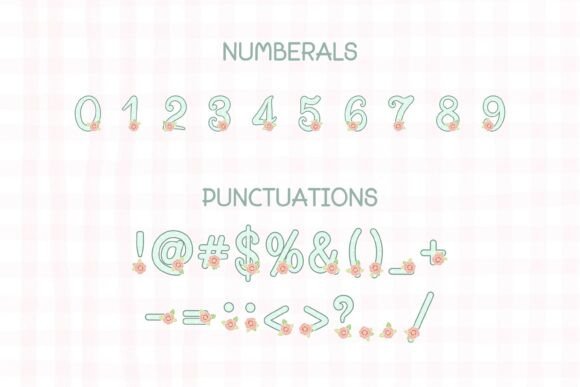
Add a Touch of Whimsy to Your Designs
Have you ever stared at a blank page, waiting for inspiration to strike? I know I have. Sometimes, it’s the smallest details that can make all the difference in sparking creativity. For me, it’s the delicate dance of colors and typography that sets the tone for a beautiful design. And that’s exactly what the Blossom Belle Font does – it adds a touch of elegance and whimsy to any project.
This stunning display font is adorned with soft pastel colors and delicate floral elements, making it perfect for a variety of designs, from wedding invitations to social media graphics. Its soft curves and floral accents will make your typography look graceful, cute, and eye-catching. Whether you’re a seasoned designer or just starting out, Blossom Belle Font is a valuable addition to your toolkit.
Blossom Belle Font Key Features
- Font Family: Blossom Belle
- Unique Characteristics: Hand-drawn, floral, and whimsical design elements; 5 weights (Thin, Light, Regular, Medium, Bold)
Blossom Belle Font Review
Overall, I was really excited to dive into the Blossom Belle font and see what it had to offer. As a designer, I’m always on the lookout for unique and elegant fonts that can bring a touch of sophistication to my designs.
- The Blossom Belle font has a beautiful, floral-inspired aesthetic that’s perfect for spring and summer-themed projects.
- The font is highly customizable, with a range of styles and weights to choose from.
- The font is well-suited for use in headings and titles, as it’s bold and eye-catching.
- The font may be a bit too ornate for some designs, and can be overwhelming if used in large quantities.
- The font doesn’t include a lot of support for languages other than English, which may be a limitation for designers working on international projects.
- The font is not suitable for use in body text, as it can be difficult to read at smaller sizes.
Overall, I think the Blossom Belle font is a great addition to any designer’s toolkit, but it’s not without its limitations. With careful use and consideration, it can add a touch of elegance and sophistication to your designs.
For the most effective use of the Blossom Belle Font, try the following:
- Use it in combination with floral or garden-themed graphics for a cohesive look.
- Use it in headings or titles to add a touch of elegance and sophistication.
The Blossom Belle Font is ideal for:
- Floral-themed branding and marketing materials.
- Event signage and banners.
Charm Script Font
Charm Script Font is a classic, elegant script font that exudes a sense of sophistication and refinement. It is perfect for creating high-end branding materials, such as business cards, letterheads, and brochures. Compared to Blossom Belle Font, Charm Script Font has a more traditional and timeless feel, making it ideal for brands that want to convey a sense of luxury and sophistication.
What is the recommended font size for optimal readability with the Blossom Belle Font?
The recommended font size for optimal readability with the Blossom Belle Font is between 12 and 24 points. However, this may vary depending on the specific application, screen resolution, and personal preference. Experiment with different font sizes to find the most legible and visually appealing setting for your design.